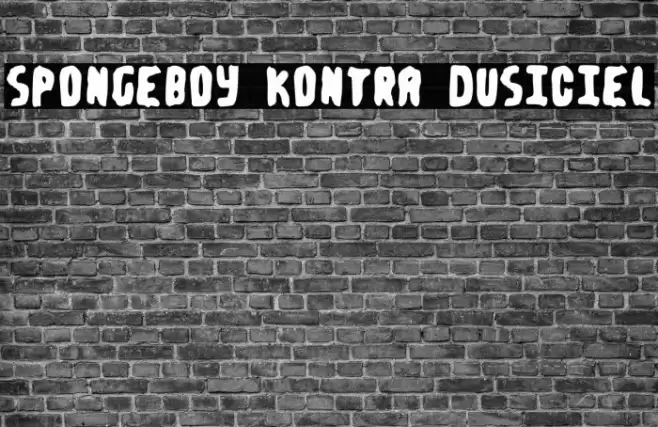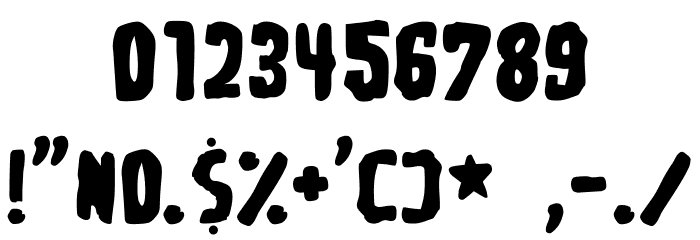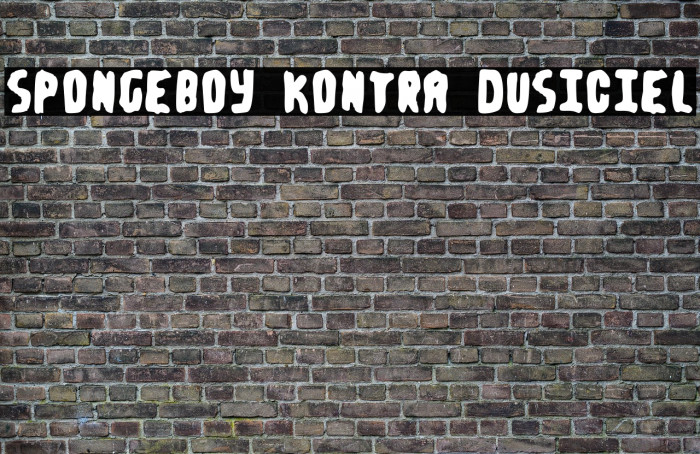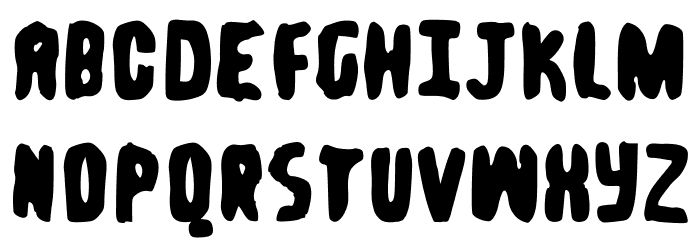
Spongeboy kontra Dusiciel Font
Spongeboy kontra Dusiciel Description
This playful and bold font features a unique, hand-drawn style with irregular, wavy edges that give it a whimsical and cartoonish appearance. The characters are thick and rounded, creating a sense of fun and energy. The uppercase and lowercase letters maintain a consistent style, with the numbers and special characters following suit. The font's design is reminiscent of a lively, animated world, making it perfect for projects that require a touch of humor and creativity. Its boldness ensures readability, while the quirky shapes add a distinctive charm.
A bold, playful font with a hand-drawn, cartoonish style from Uncategorized fonts.
- Proposed Projects: Ideal for children's books, animated video titles, playful branding, and creative posters.
- Overall Style: Playful, Cartoonish, Whimsical